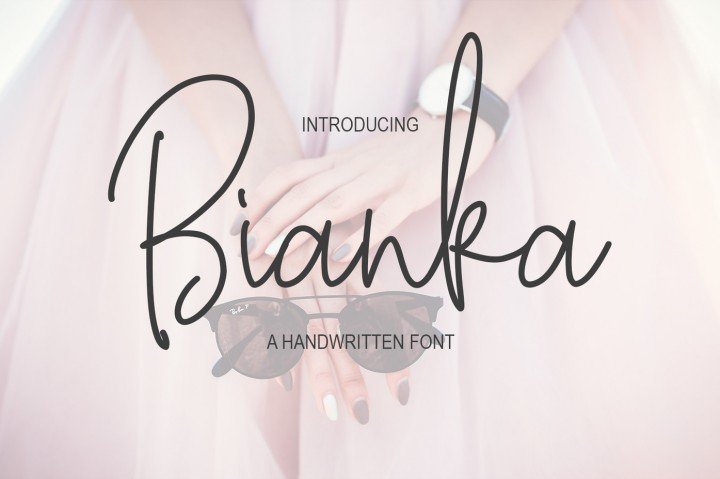
Bianka Script Font
Hello Everyone! Here is a stylish handwritten font, it was created by Az Creatype Studio. Introducing Bianka. This a handwritten font with monoline style. It comes with a ton of glips, alternate, ligatures and swashes. That will be very usefull for your project desain, especially type design.